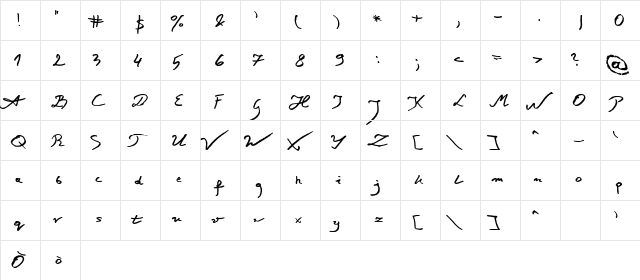
Jacek Zieba-Jasinski Italic
Design Context for Jacek Zieba-Jasinski Typeface
Jacek Zieba-Jasinski is a composed and adaptable typeface that performs quietly and consistently across a wide range of design contexts. The dynamic lean of this cut emphasises speed and emphasis in any layout.
Pro Tip: Try Jacek Zieba-Jasinski for annotation and caption copy alongside an upright companion — the contrast in angle creates a dynamic but ordered typographic system.